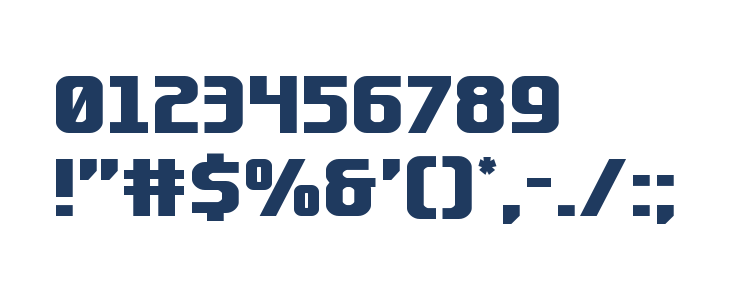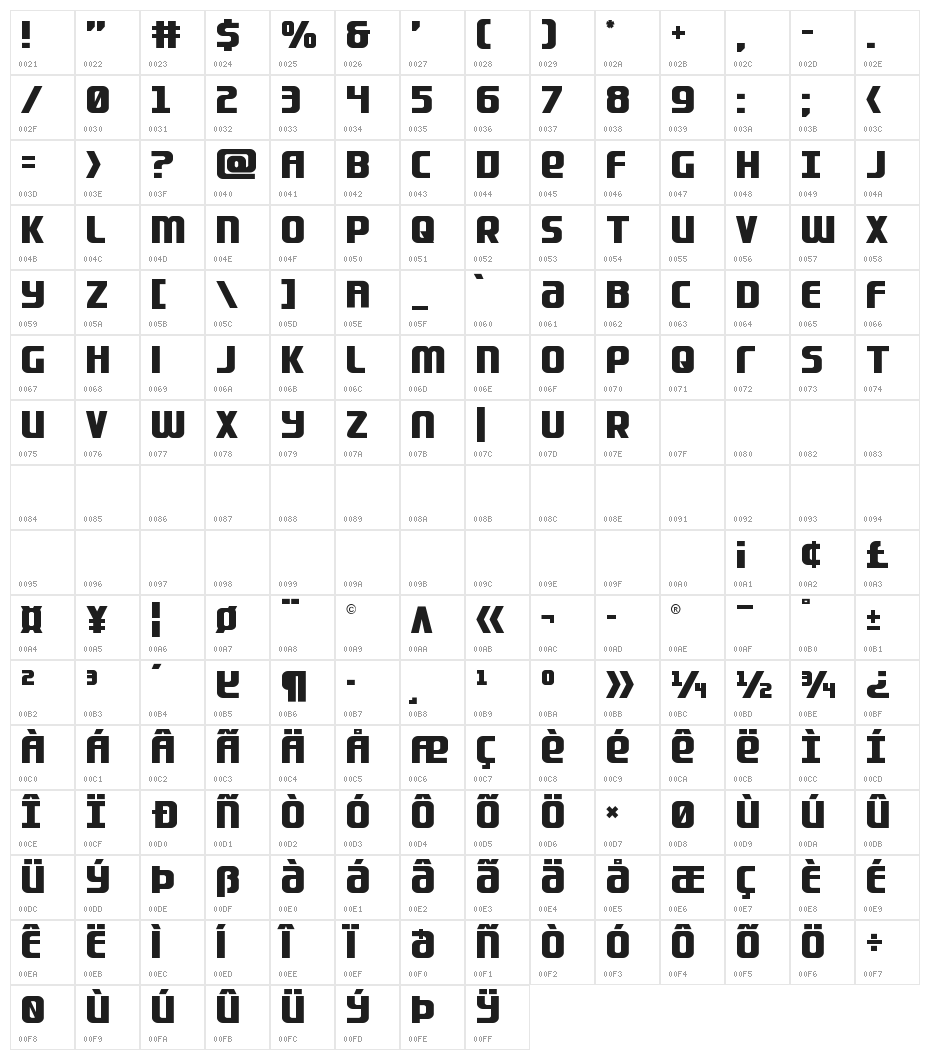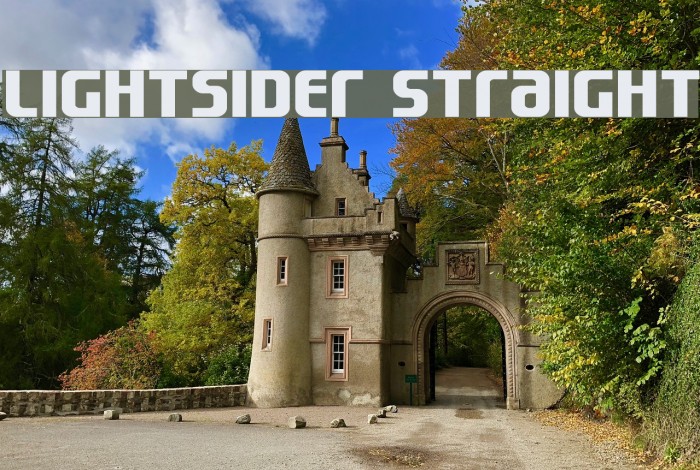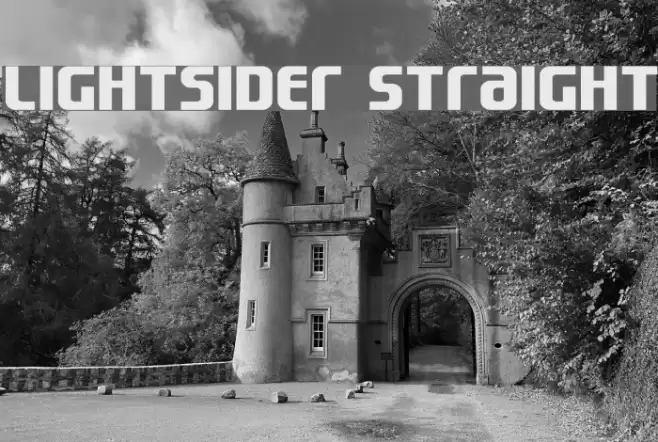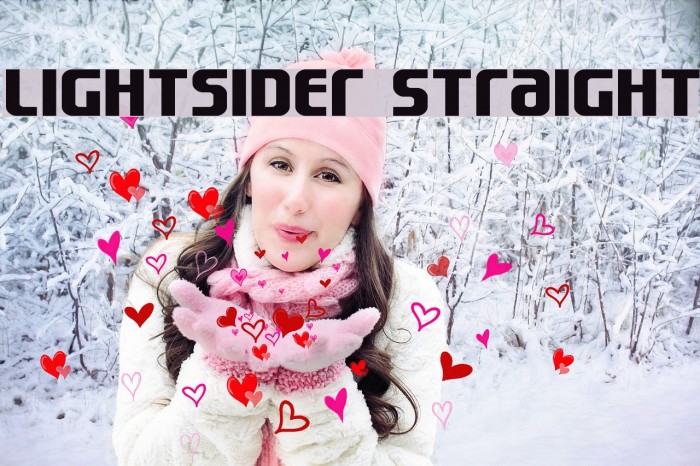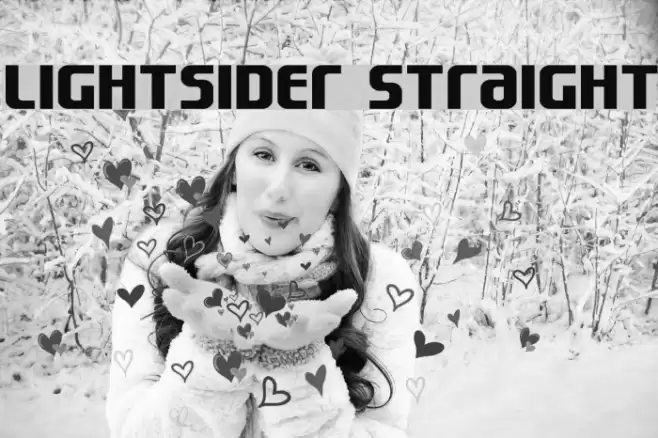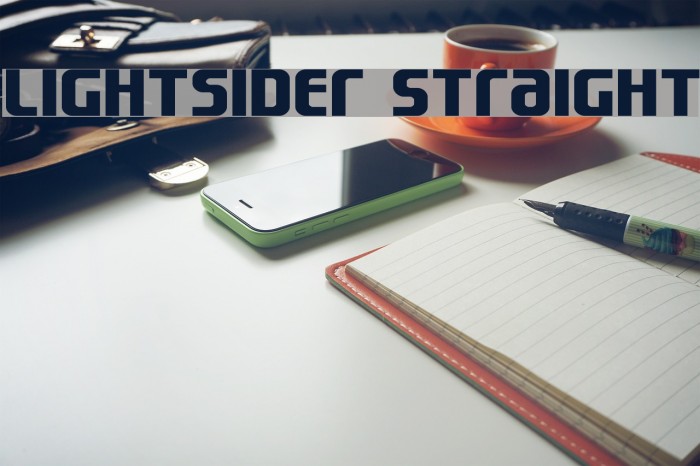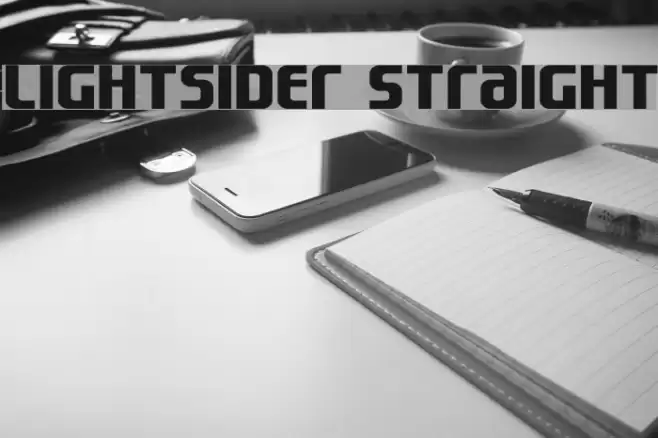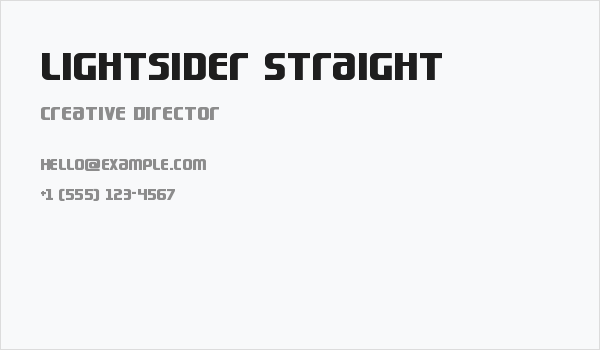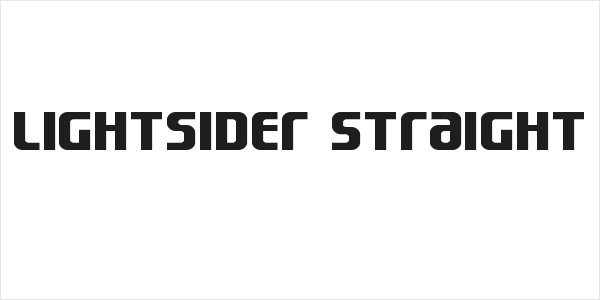
Lightsider Straight Font
Lightsider Straight Description
This font features a bold and modern design with a strong geometric influence. The characters are uniformly thick, giving a robust and solid appearance. The uppercase and lowercase letters maintain a consistent style, with rounded edges that soften the overall look. The numerals are clear and easily distinguishable, matching the boldness of the alphabet. Special characters are designed with the same attention to detail, ensuring they integrate seamlessly with the rest of the font. This font is well-suited for projects that require a contemporary and impactful visual presence.